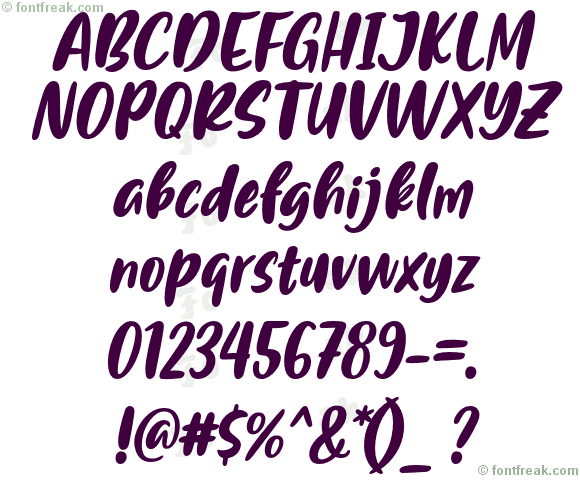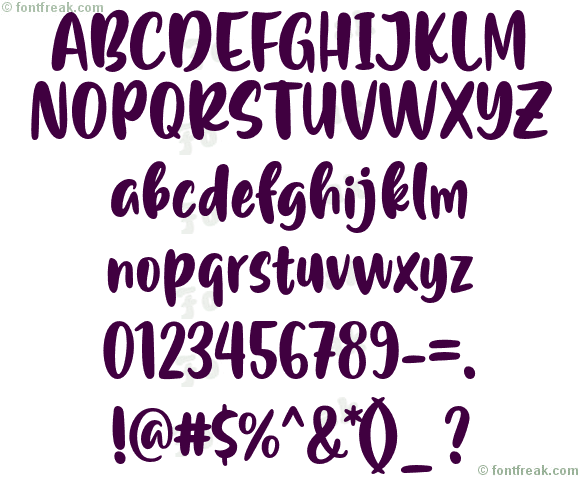
FlashonSaturdayNight-Italic
FlashonSaturdayNight
FlashonSaturdayNight-Italic is a striking and versatile display font designed by Situjuh Nazara in 2019. This font falls into the decorative category, characterized by its playful and dynamic italic style. The stroke weight varies, providing a sense of movement and energy, while the moderate contrast between thick and thin strokes adds depth and visual interest. The spacing is well-balanced, ensuring readability without sacrificing style. Its unique, flowing letterforms are reminiscent of handwritten brush scripts, making it both contemporary and inviting.
This font is particularly well-suited for a variety of creative applications. It excels in wedding invitations, where its elegant yet whimsical nature can enhance the romantic theme. Movie posters also benefit from its bold, expressive qualities, drawing attention and evoking excitement. Additionally, restaurant menus can utilize FlashonSaturdayNight-Italic to create an inviting atmosphere that attracts diners. Content creators looking to make eye-catching social media posts and marketing materials will find this font to be an excellent choice, allowing their designs to stand out in crowded feeds.
What truly sets FlashonSaturdayNight-Italic apart is its ability to convey a sense of fun and creativity, making it ideal for projects that aim to engage and inspire. Whether you’re crafting a personal invitation or a promotional poster, this font can add a distinctive flair to your designs. Don’t miss out on the opportunity to enhance your typography with the FlashonSaturdayNight-Italic font free download.